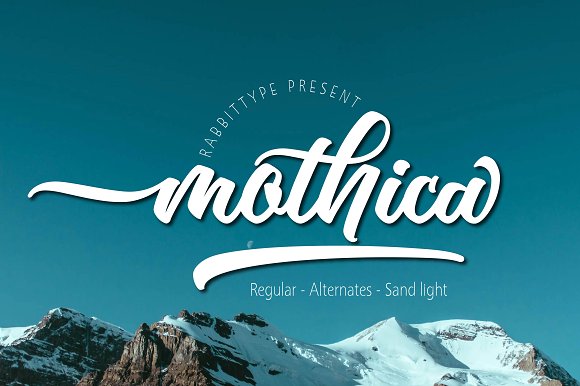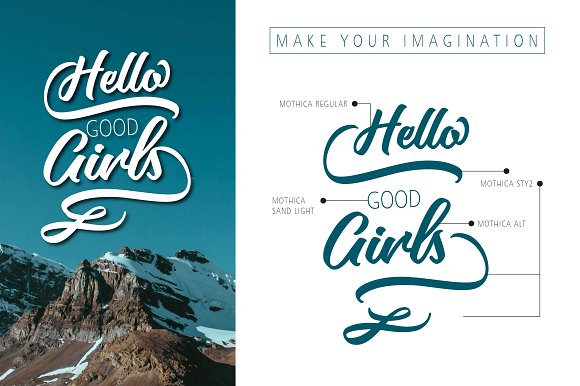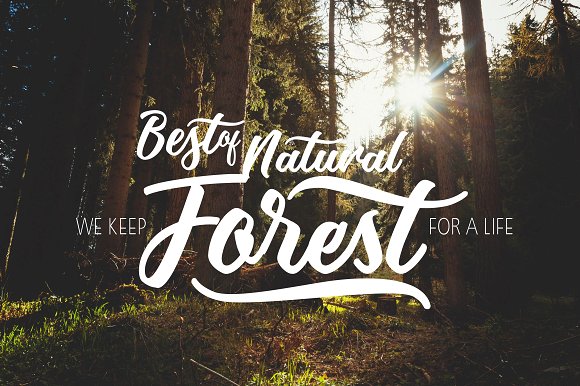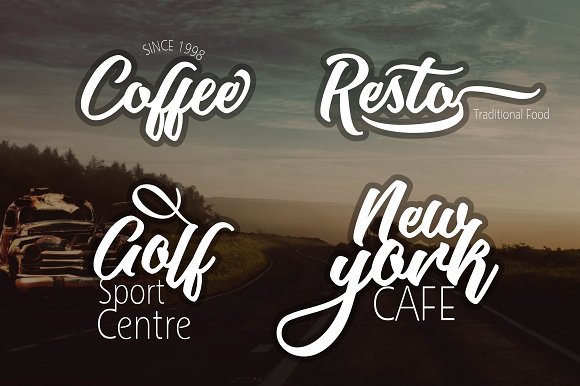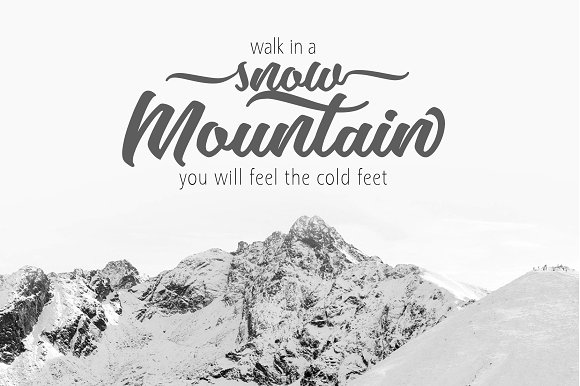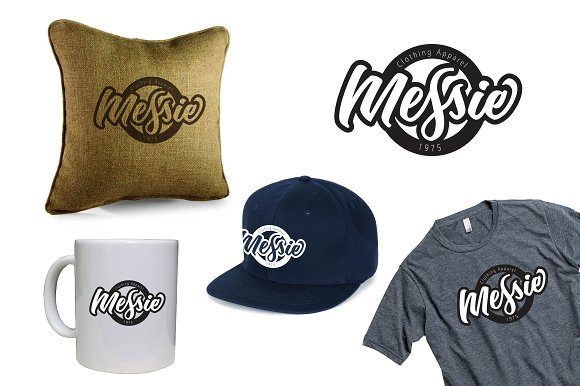
Mothica Script Font
About Mothica Script Font
Mothica Script, a beautiful handwritten script. It’s a fluid font that works well in many different types of projects.
This professional looking font is easy to read and works well for marketing & branding as well as craft projects.